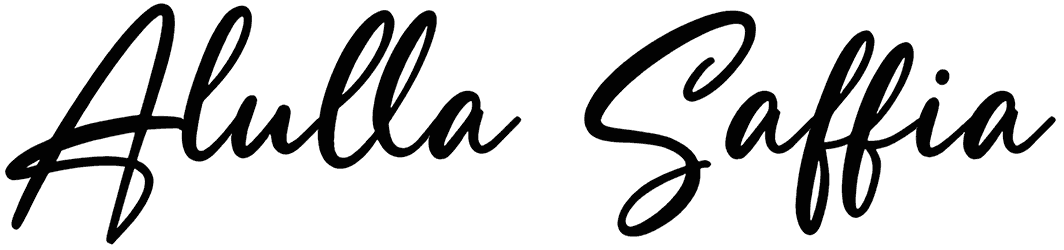
Alulla Saffia Font
This handwritten font can help you level up your text-based designs. You can use Alulla Saffia for business cards, beauty and fashion projects, logos, and more of the same. Just download and share a feeling of charm and elegance. Note that this one lacks numbers. Do you eager to get more? Browse our website.